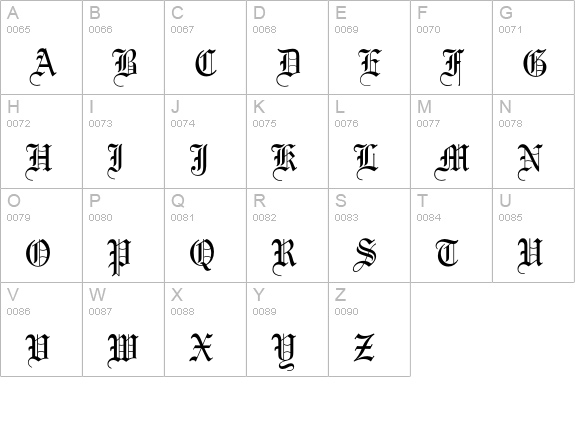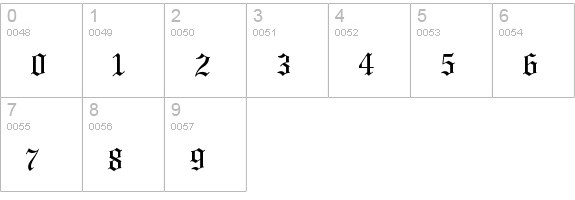
Wedding Text Std font is a stunningly elegant and sophisticated typeface that is perfect for adding a touch of class to any wedding-related project. Its delicate and graceful letterforms exude romance and charm, making it the ideal choice for invitations, save-the-date cards, wedding programs, and more. With its intricate detailing and timeless appeal, Wedding Text Std font captures the essence of love and celebration, creating a truly memorable visual experience. Whether you're planning a traditional wedding or a modern affair, this font will effortlessly enhance the overall aesthetic and elevate your design to new heights. One of the best things about Wedding Text Std font is that it is available for free download at FontsMarket.com. This means that you can easily access this exquisite font without any cost, making it an incredibly valuable resource for both professional designers and DIY enthusiasts. By using Wedding Text Std font, you can add a touch of elegance and sophistication to your wedding stationery, ensuring that every detail is meticulously crafted to perfection. Its versatility allows you to experiment with different sizes, styles, and colors, enabling you to create a truly personalized and unique look for your wedding materials. So, if you're looking for a font that embodies the beauty and romance of a wedding, look no further than Wedding Text Std font. With its free availability at FontsMarket.com, you can easily bring a touch of timeless elegance to your wedding designs and make a lasting impression on your guests.